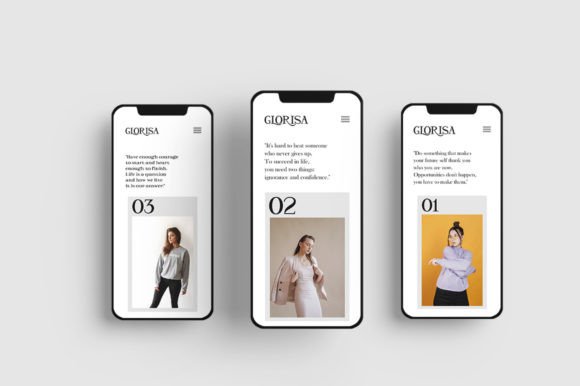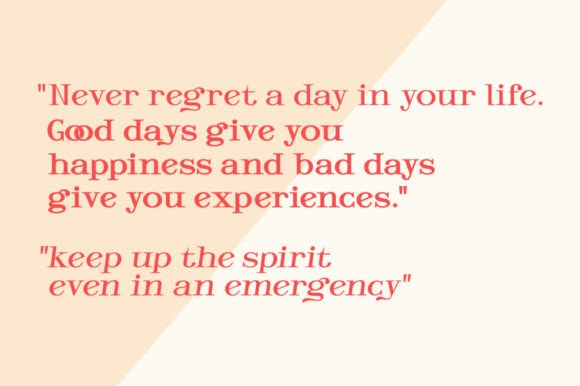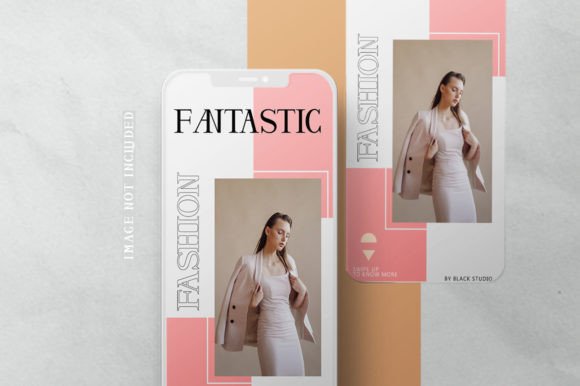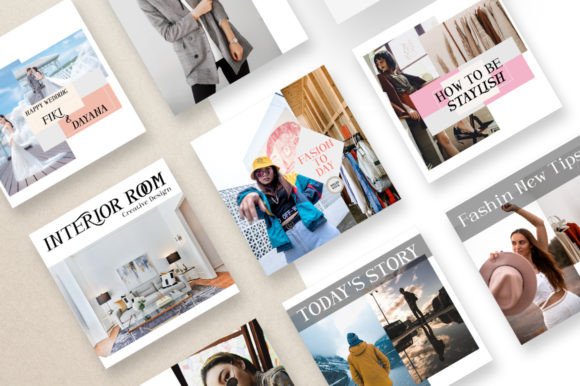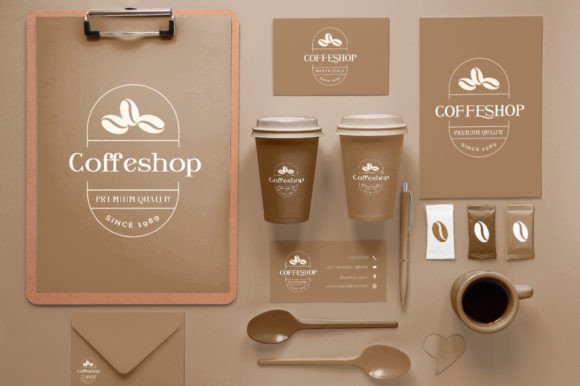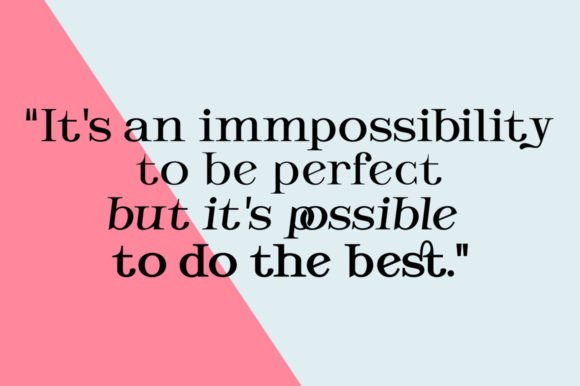
Introducing Glorisa Font: Elevate Your Designs with Elegance and Sophistication
In the world of typography, a font can make or break a design. If you’re looking for a typeface that exudes luxury, style, and versatility, look no further than Glorisa Font. This elegant serif font is designed to add a touch of sophistication to your projects, making it perfect for a wide range of applications, from editorial and magazine designs to logo creations, branding, and product packaging.
The Characteristics of Glorisa Font
Glorisa Font is a masterclass in elegant design. Its serif characteristics bring a sense of tradition and reliability, while its refined lines and curves add a touch of modernity and flair. This font is meticulously crafted to work beautifully in both large and small sizes, ensuring that your text remains clear and legible, regardless of the context.
One of the standout features of Glorisa Font is its incredible versatility. Whether you’re working on a high-end editorial project, a stylish magazine header, a sophisticated logo design, or a branding campaign that demands a touch of elegance, Glorisa is up to the task. Its adaptability also extends to product packaging, where it can help your product stand out on crowded shelves with its unique blend of classic and contemporary style.
Perfect for Showcasing Masculine and Feminine Qualities
Glorisa Font is not just about elegance; it’s also surprisingly versatile in terms of the emotions and qualities it can convey. Its design strikes a perfect balance between masculine and feminine attributes, making it an excellent choice for brands or projects that wish to appeal to a broad audience or embody both strength and grace. Whether you’re aiming for a bold statement or a subtle whisper, Glorisa adjusts beautifully to fit your vision.
Why Choose Glorisa Font?
There are countless reasons why Glorisa Font should be your go-to choice for your next design project:
- Elegance and Sophistication: Glorisa brings an unmatched level of sophistication to any project, instantly elevating its status.
- Versatility: From large titles to smaller body text, Glorisa performs flawlessly across sizes.
- Wide Range of Applications: It’s suitable for editorial projects, magazines, logos, branding, packaging, and more.
- Masculine and Feminine Appeal: Glorisa’s balanced design makes it perfect for projects aiming to capture a broad spectrum of audiences.
Tips for Using Glorisa Font Effectively
To get the most out of Glorisa Font, consider the following tips:
- Experiment with Sizes: While Glorisa looks great in large sizes, don’t be afraid to use it for body text. Its clarity ensures it remains readable even at smaller sizes.
- Play with Colors: Glorisa works well with a variety of color schemes. Experiment with different colors to find the perfect match for your brand or project.
- Mix and Match: Consider pairing Glorisa with sans-serif fonts for a striking contrast that can add depth and interest to your designs.
Glorisa Font is more than just a typeface; it’s a design statement. With its elegant serifs, versatile nature, and ability to convey both masculine and feminine qualities, Glorisa has the potential to transform your projects, adding a layer of luxury and style that’s hard to achieve with standard fonts. Whether you’re a designer, a craftsperson, or simply someone who appreciates the finer details in design, Glorisa Font is an excellent addition to your typographic arsenal.